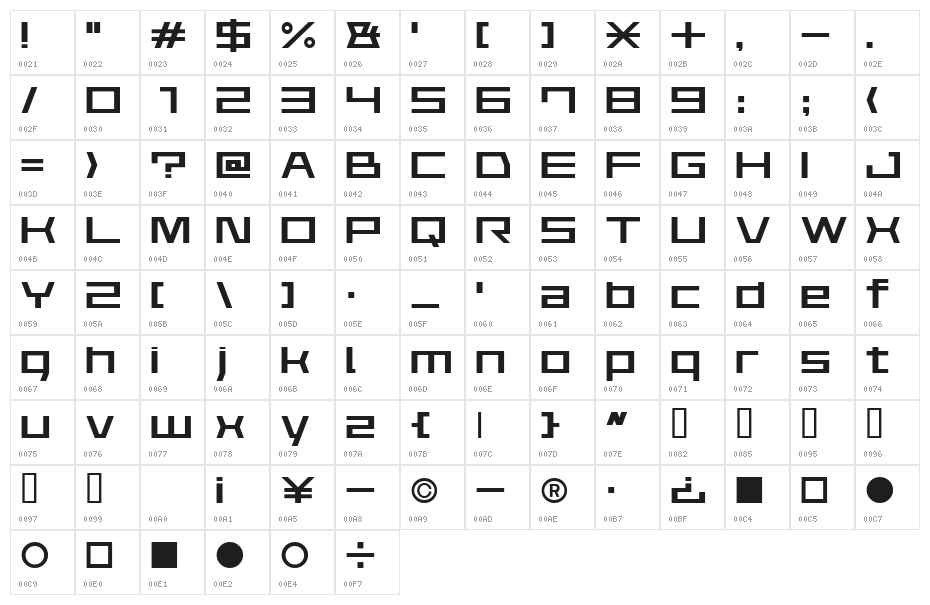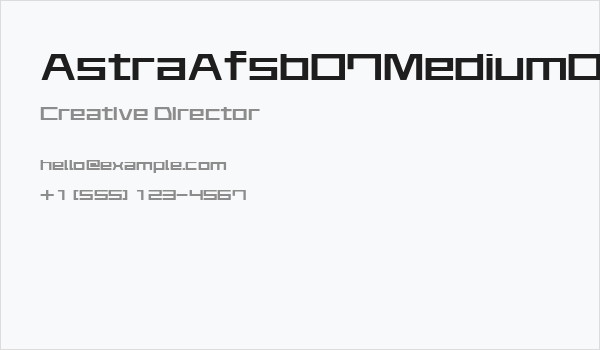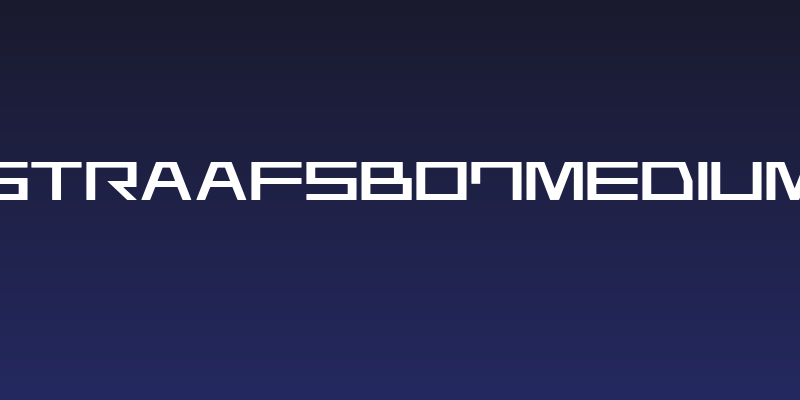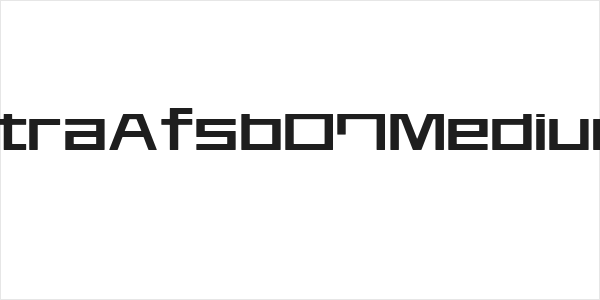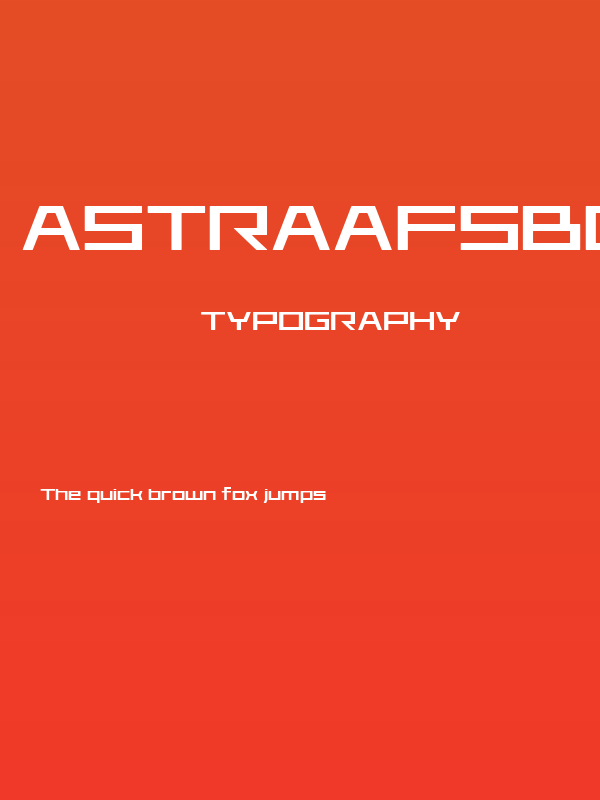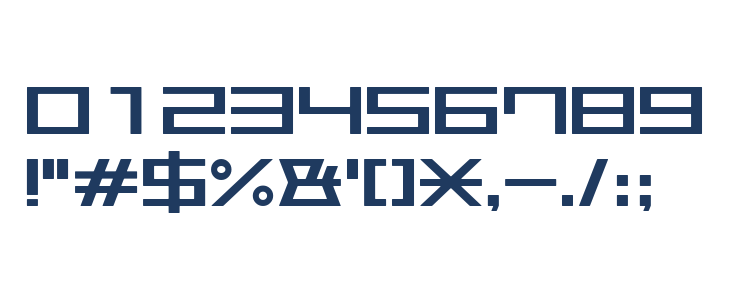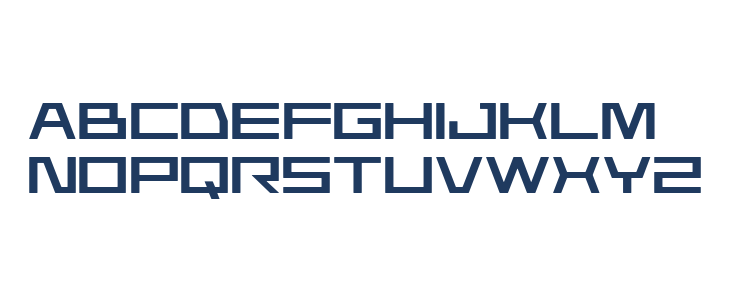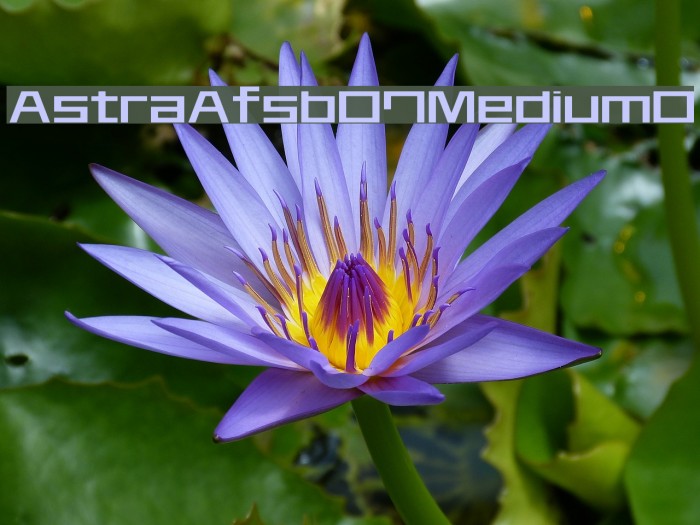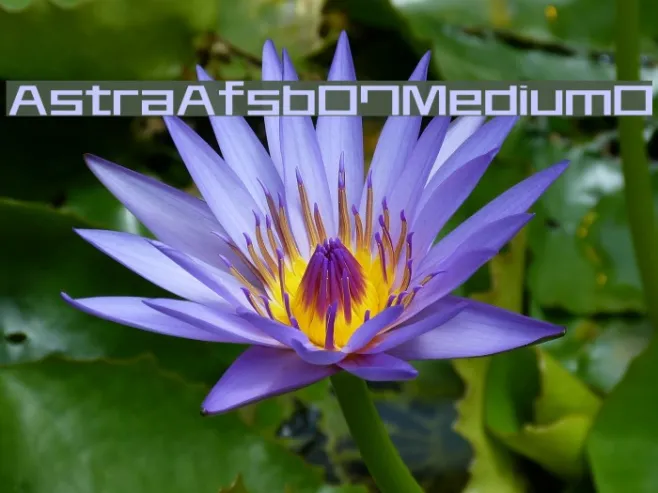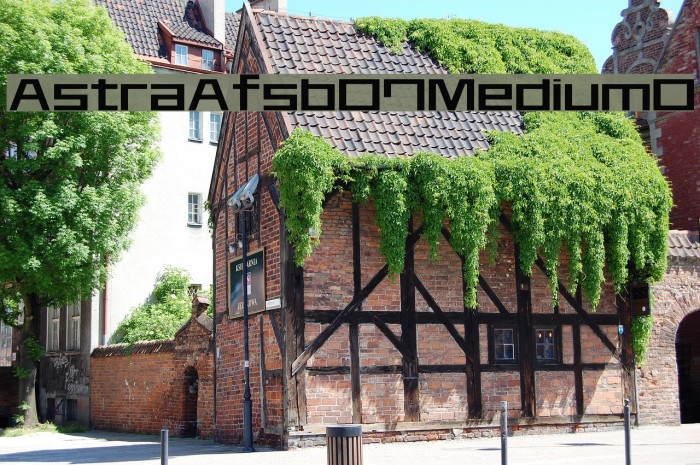
AstraAfsb07MediumO Font
AstraAfsb07MediumO Description
This font features a bold, geometric style with a futuristic and technical appearance. The characters are constructed with sharp angles and straight lines, giving it a mechanical and digital feel. The uppercase and lowercase letters maintain a consistent height, contributing to a uniform and structured look. The numerals and special characters follow the same design principles, ensuring a cohesive visual identity across all elements. This font's design is reminiscent of digital displays or sci-fi themes, making it suitable for projects that require a modern and edgy aesthetic.
| Proposed Projects | Ideal for technology branding, sci-fi themed projects, digital interfaces, and video game titles. |